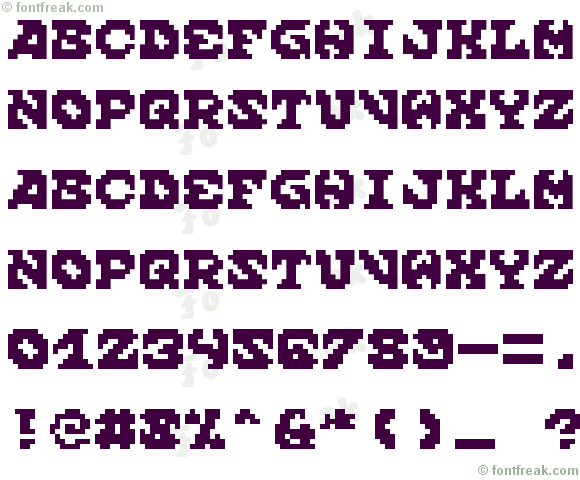
Scream When You're Ready To Die Regular
Scream When You're Ready To Die Regular is a striking display font designed by Andrew McCluskey, released as freeware in 2013. This font falls into the decorative category, characterized by its bold, blocky letters that convey a sense of urgency and energy. The stroke weight is consistent throughout, offering a sturdy appearance, while the slight irregularities in letterforms add a unique, hand-crafted feel. The spacing between characters is tight, which enhances the font's dramatic impact, making it an excellent choice for attention-grabbing designs.
The visual characteristics of Scream When You're Ready To Die Regular are particularly suited for creative projects that require a strong, expressive typeface. This font is perfect for use in movie posters, where its bold design can evoke excitement and intrigue. It also works well for music album covers, especially within genres that embrace edgy aesthetics. Additionally, this font can enhance promotional materials for events or festivals, helping to capture the attention of potential attendees. Graphic designers and content creators will find it an ideal choice for social media graphics that aim to make a statement.
Overall, this font stands out due to its bold aesthetic and distinctive character, making it a memorable choice for anyone looking to create visually compelling designs. Its unique style ensures that any project it graces will leave a lasting impression.